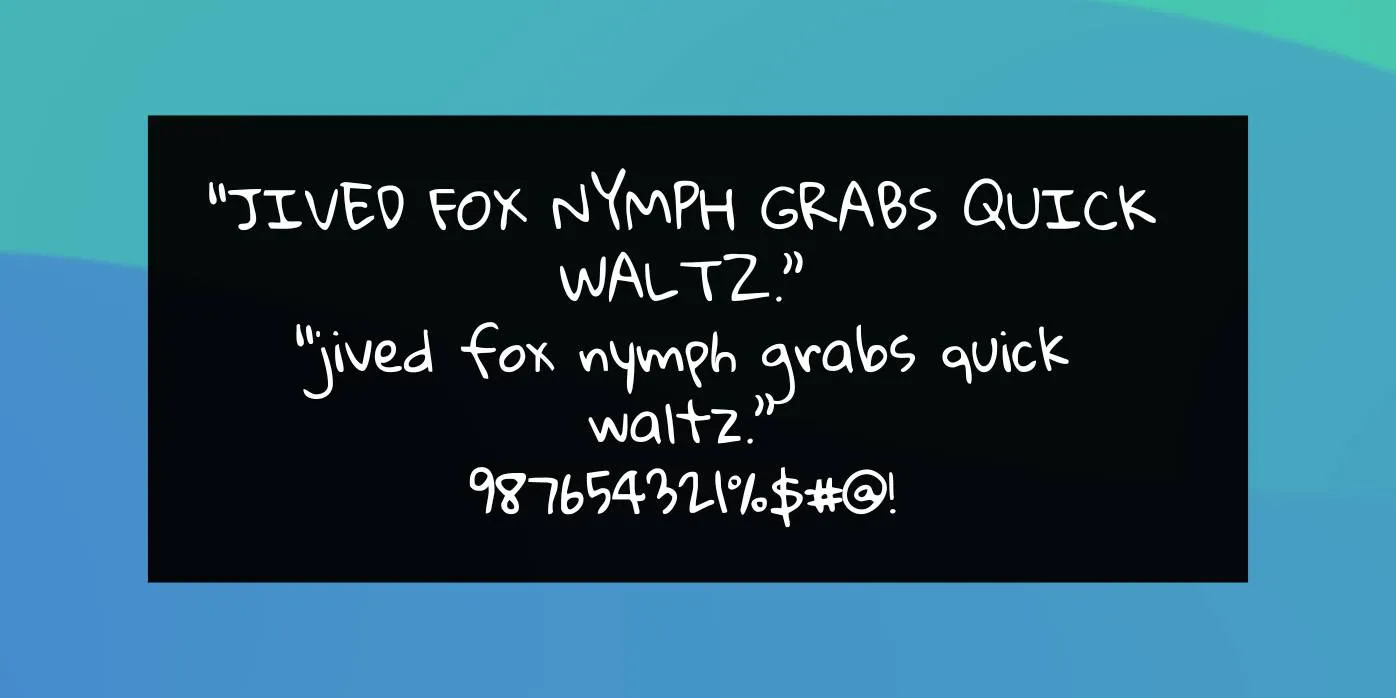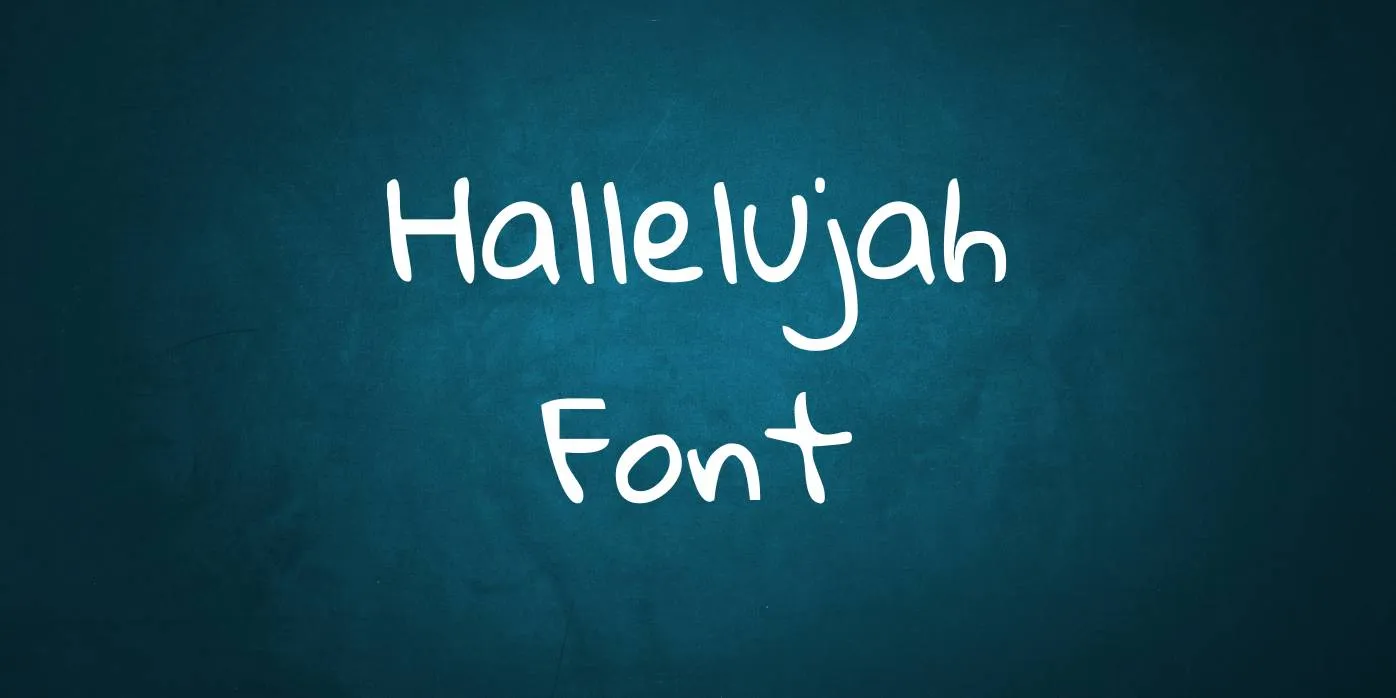
Hallelujah Font
We discuss detailed information about Hallelujah Font. It is a very nice handwritten font and was designed by Aantebas a famous graphic designer. It contains 3 different styles Hallelujah Regular, Hallelujah Light, and Hallelujah Brush which can be used for different projects. An online generator tool also supports this font through which you can change simple text into a stylish look online without downloading the font.